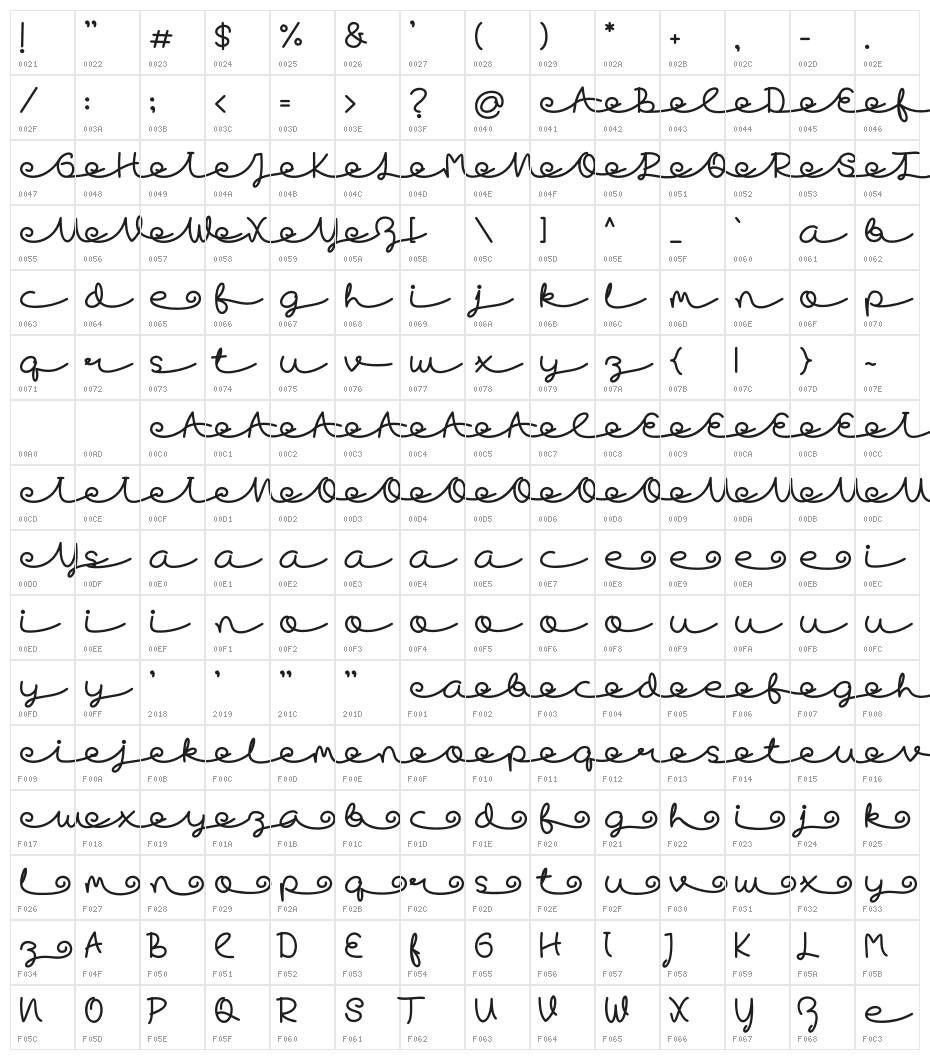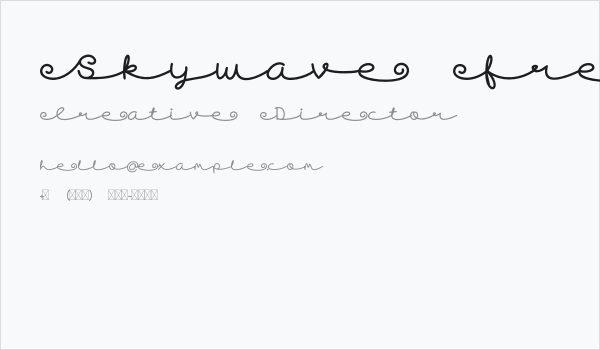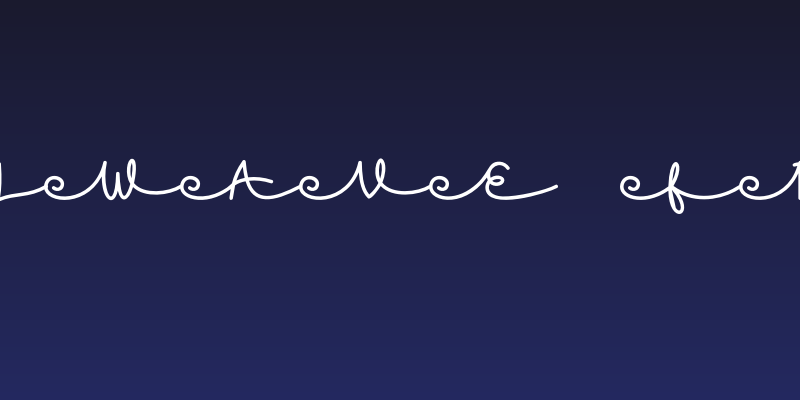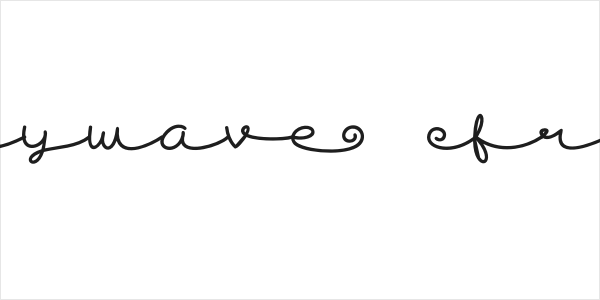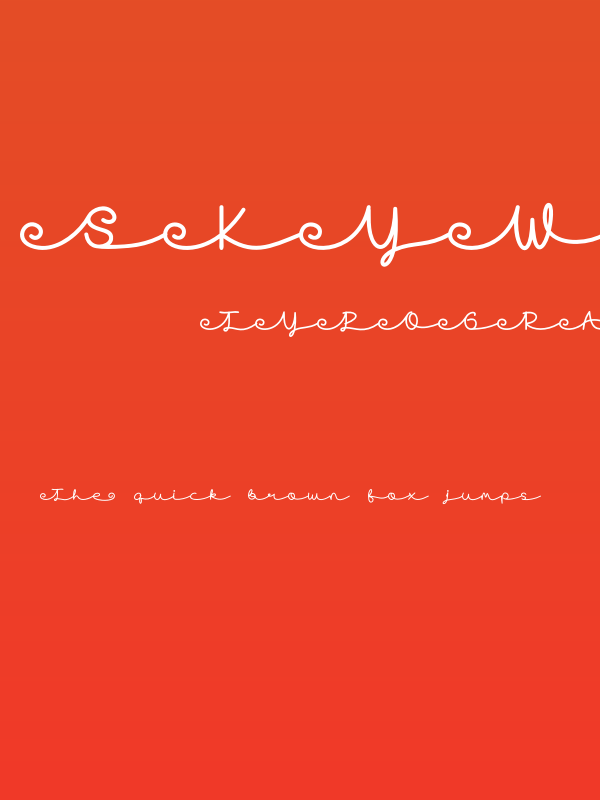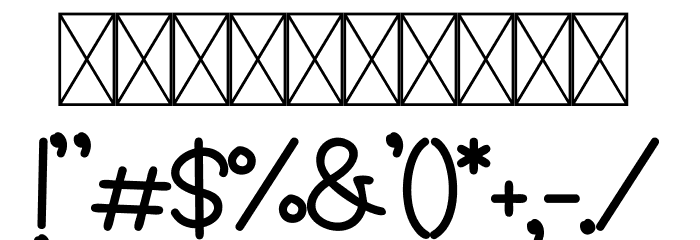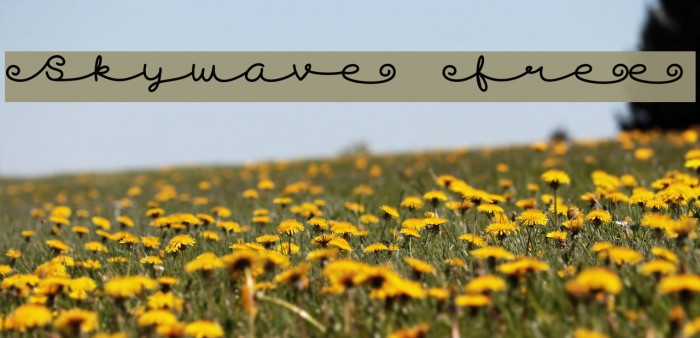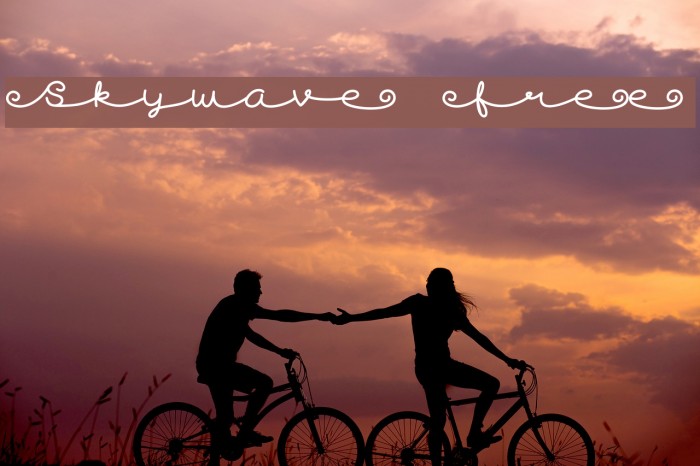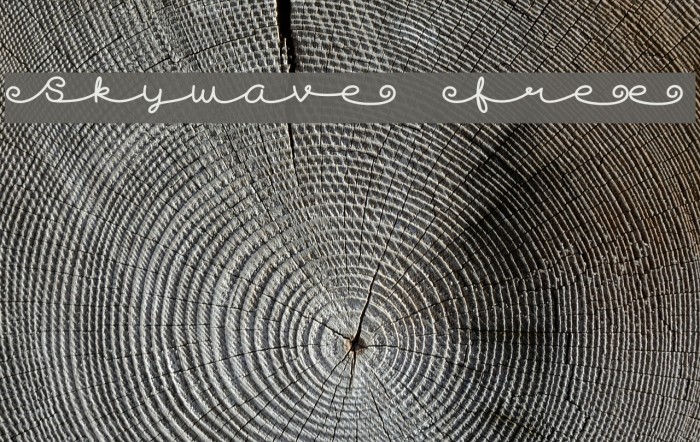
Skywave Free Font
Skywave Free Description
This font features a playful and whimsical script style with smooth, flowing lines that create a sense of movement and elegance. The characters are connected in a cursive manner, giving it a handwritten feel. The uppercase letters maintain a consistent height, while the lowercase letters have a slight slant, adding to the casual and informal appearance. The numbers and special characters are designed to match the overall style, with a similar fluidity and charm. The font's unique character shapes make it stand out, making it suitable for creative and artistic projects.
| Proposed Projects | Ideal for greeting cards, invitations, personal branding, and creative projects requiring a personal touch. |